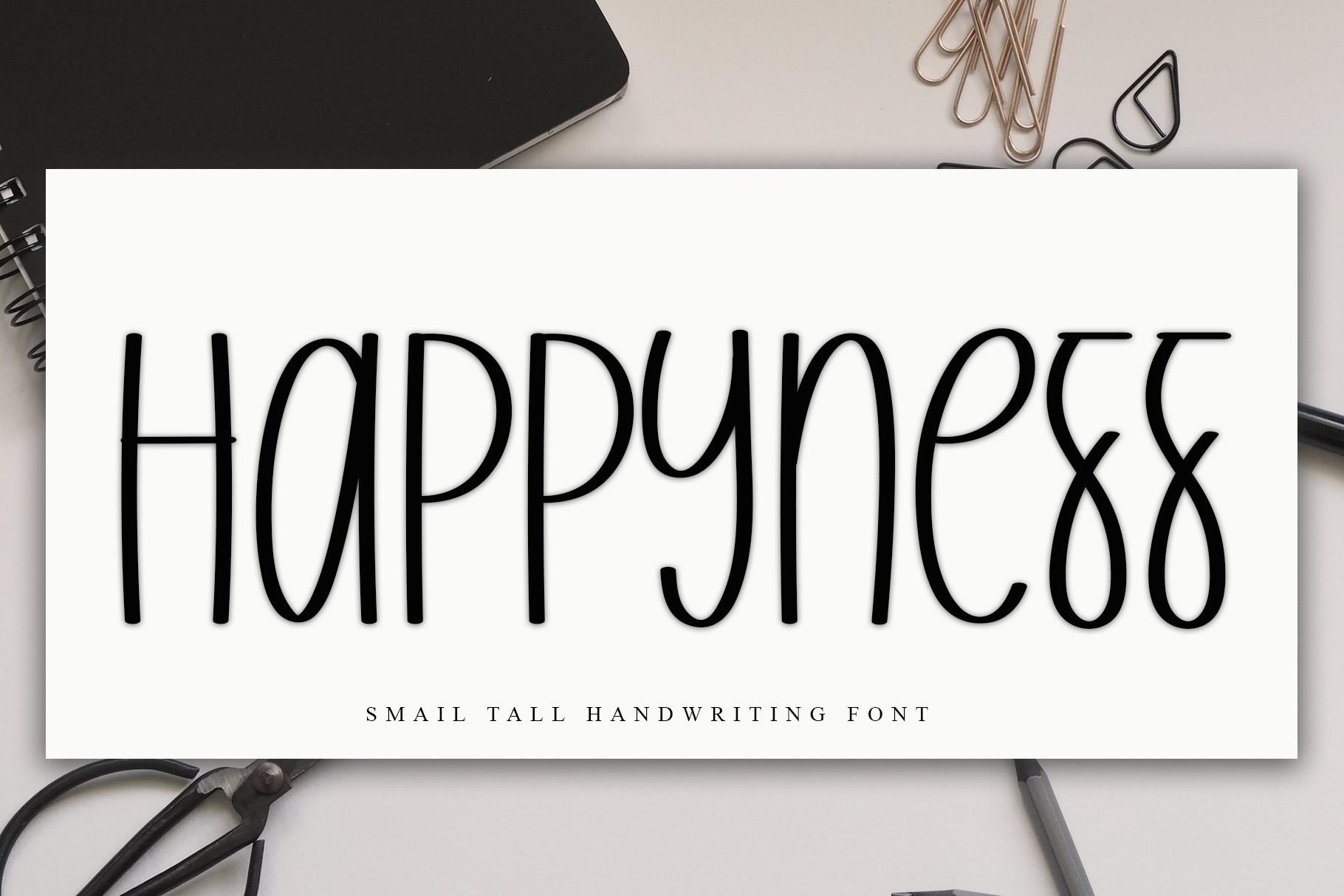
Happyness Font Description
Happyness is an enchanting handwritten font. This versatile script font has a wide spectrum of applications ranging from greeting cards to headlines and is guaranteed to add a romantic feel to your next project. Masterfully designed to become a true favorite, it has the potential to bring each of your creative ideas to the highest level!